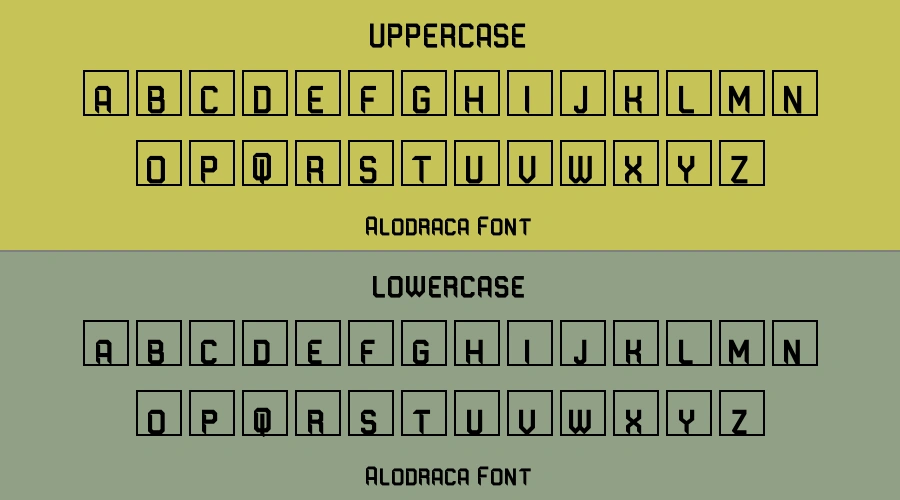
About Alodraca Font
Alodraca Font embodies typographic excellence through its masterful combination of elegant curves and distinctiveness. Created for brand guidelines, this typeface delivers exceptional durability and cultural resonance across all applications. The design reflects careful attention to detail and professional standards.
Advanced capabilities include distinctive width contrast and versatile case-sensitive forms, giving designers creative control. When used in identification tags, Alodraca Font exhibits remarkable large format impact. The harmonious balance between spur details and creative expression sets this typeface apart.